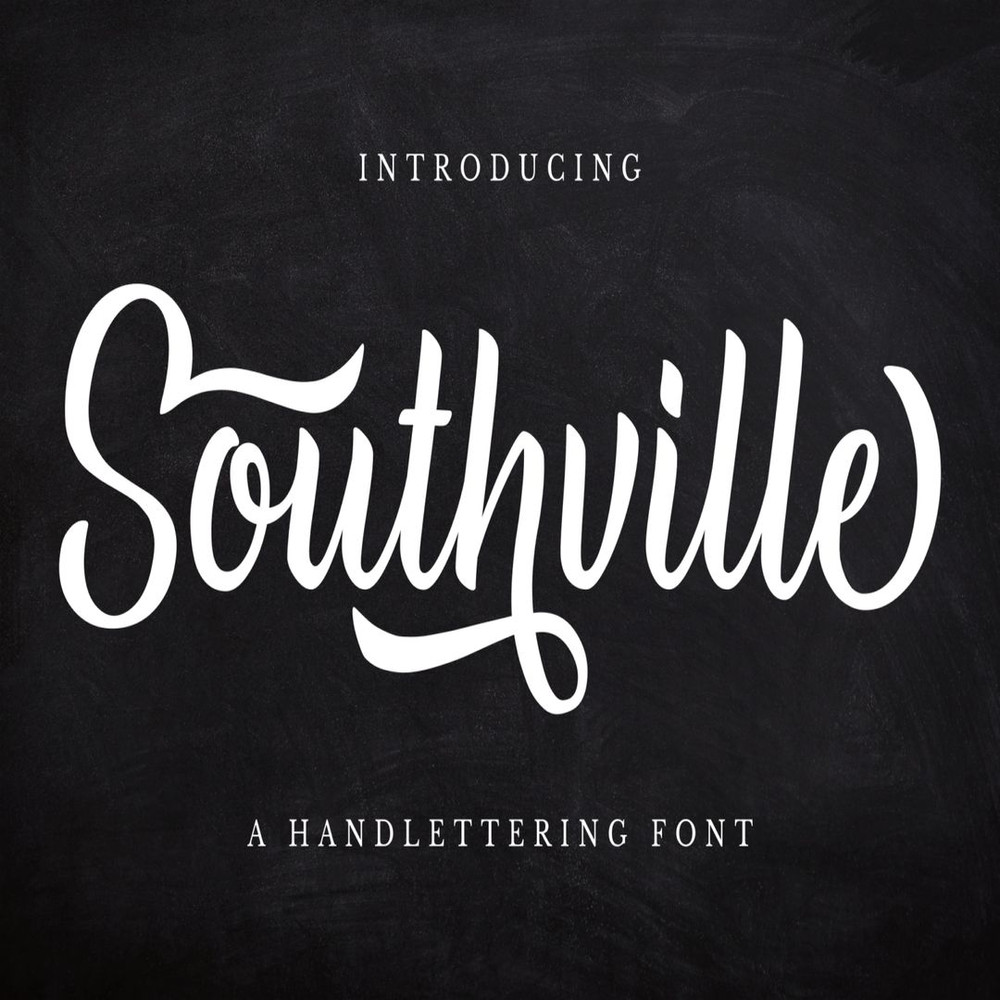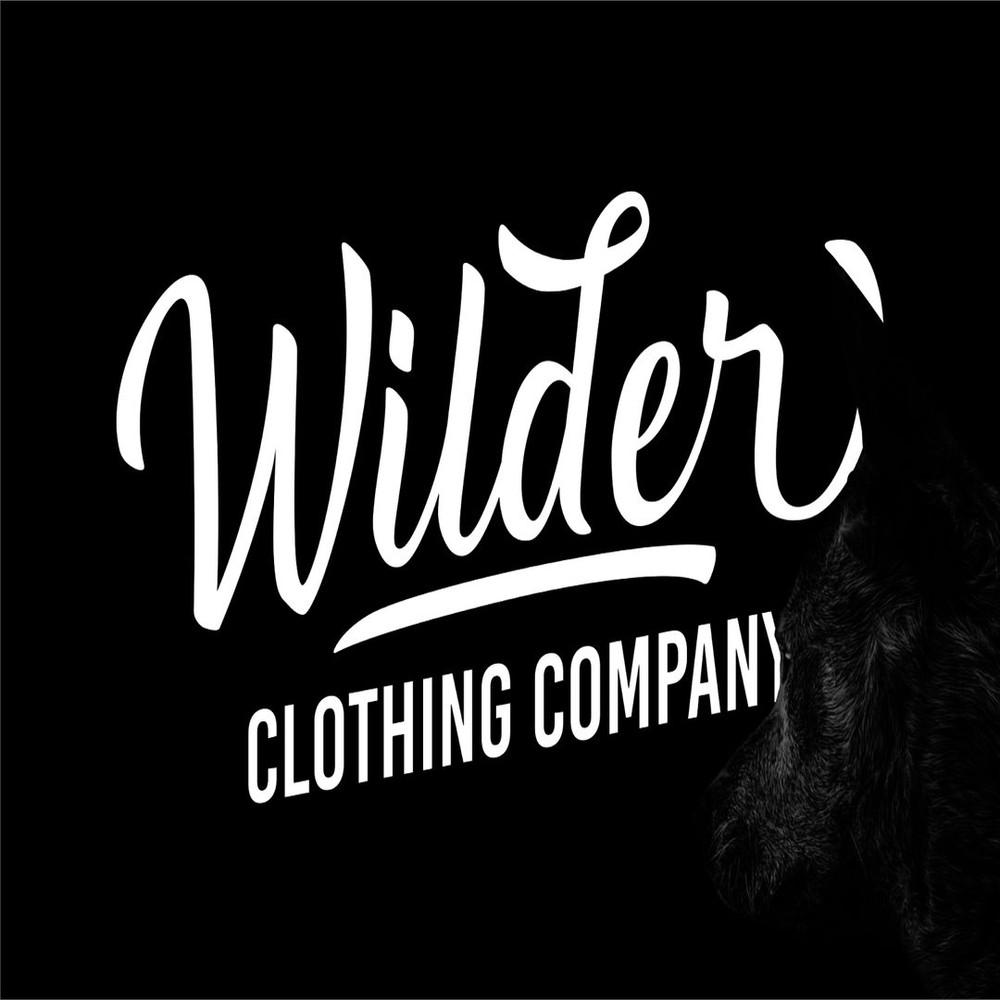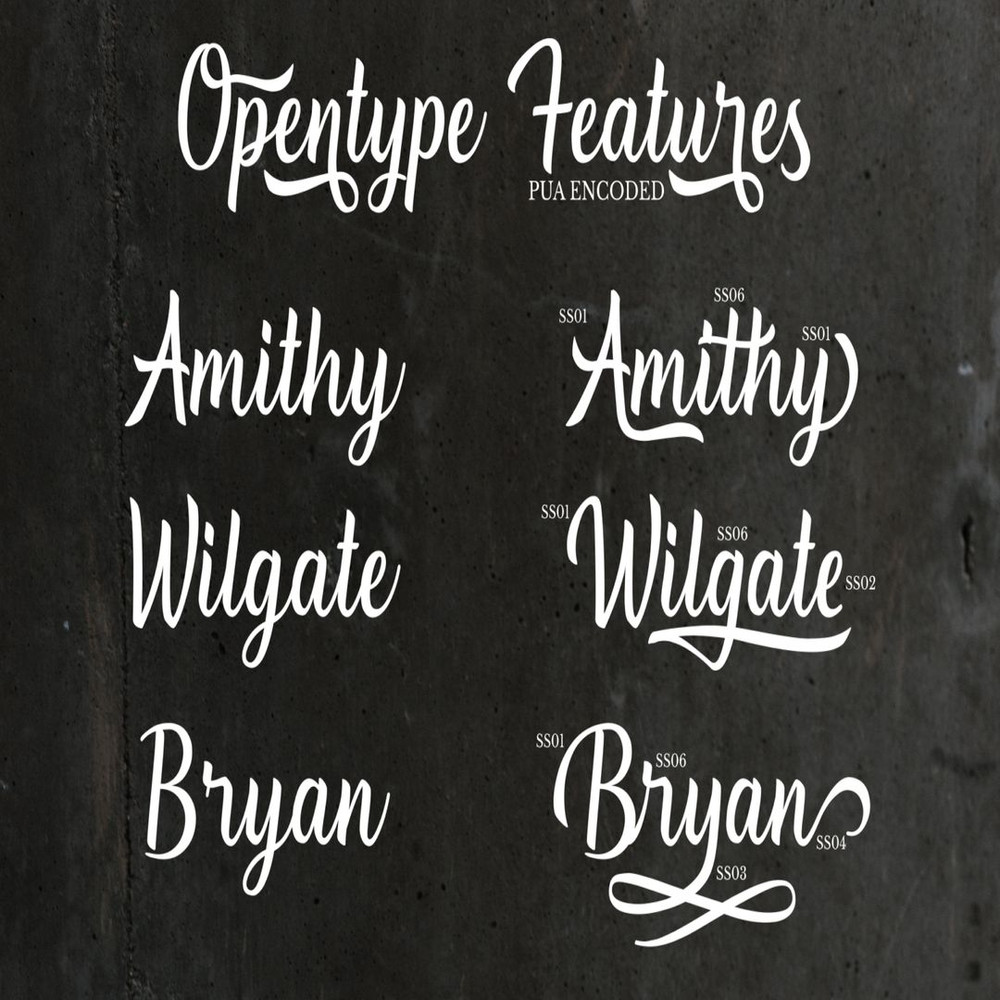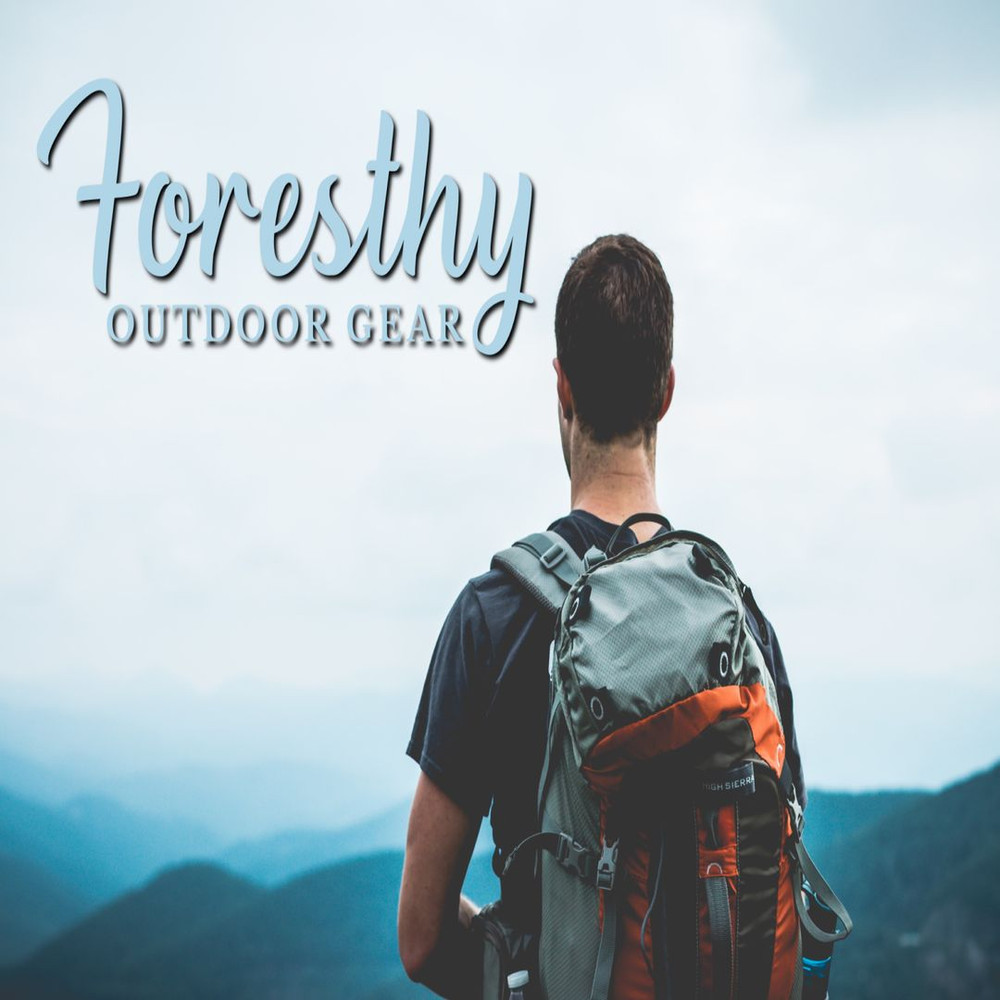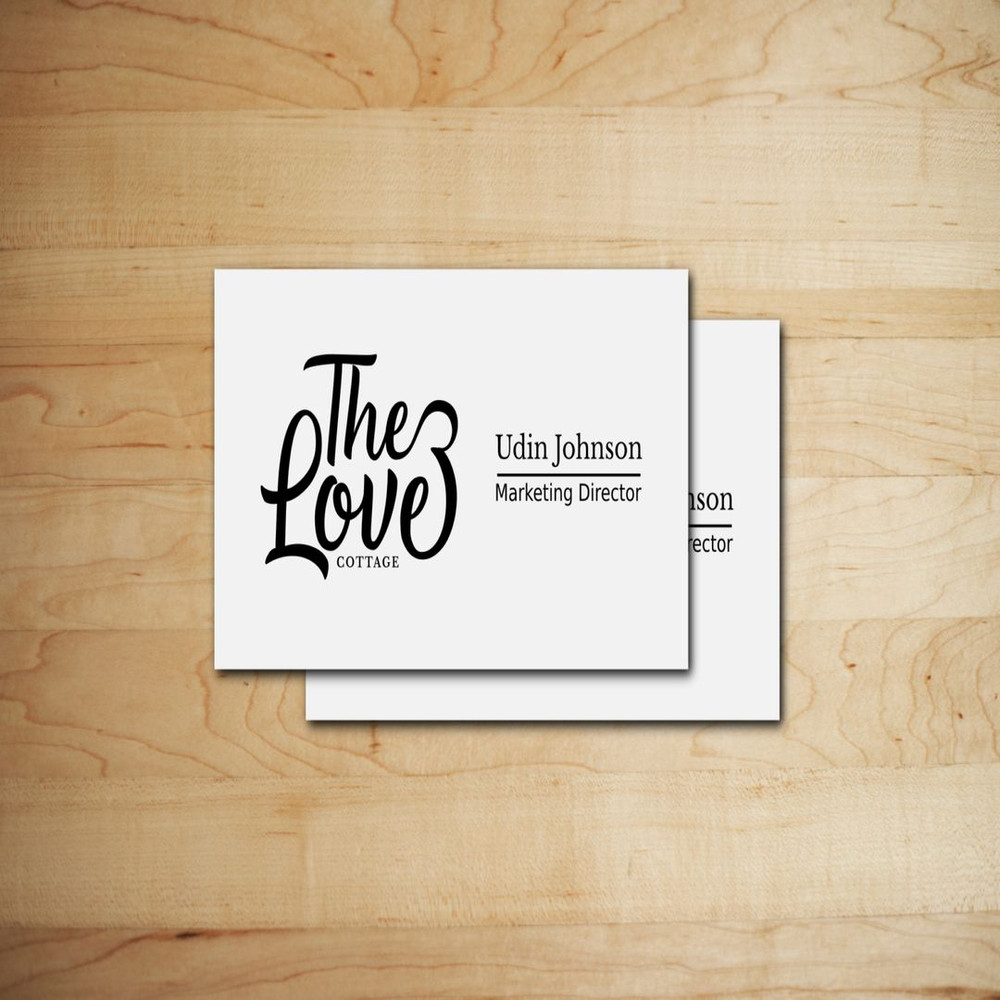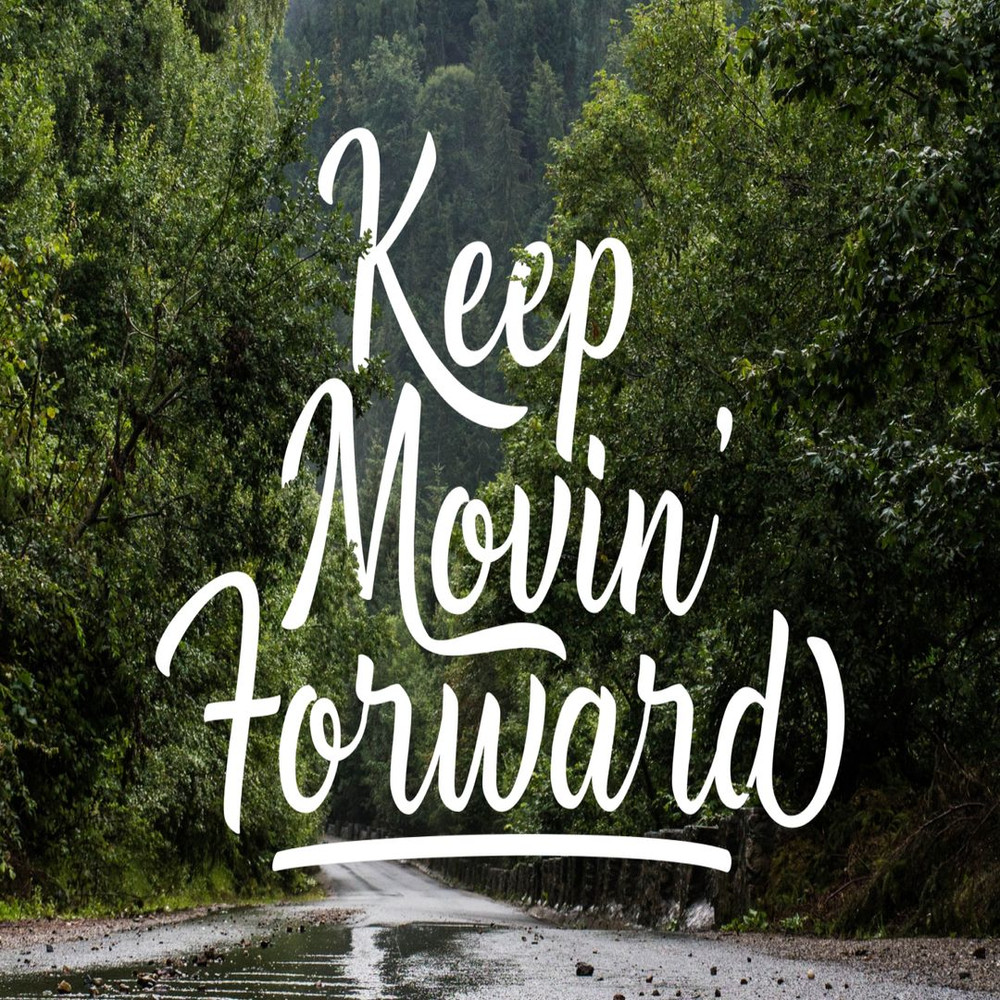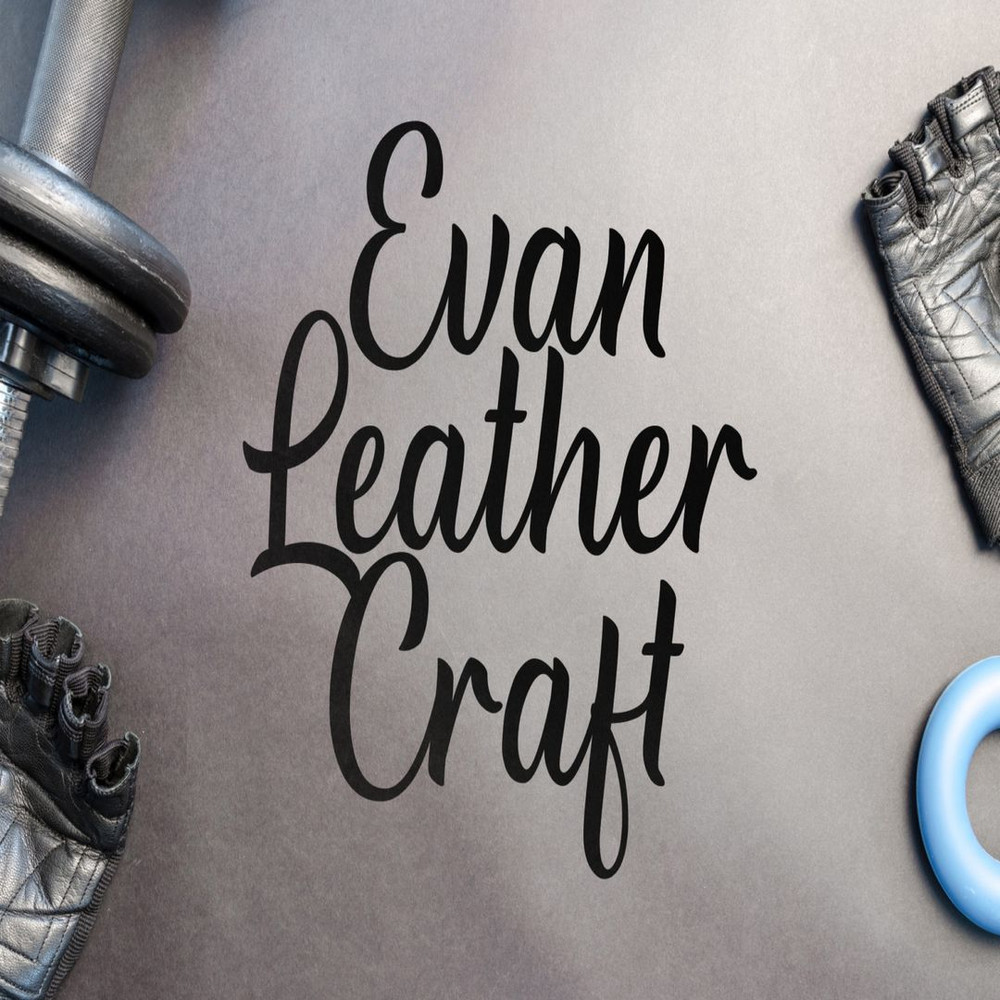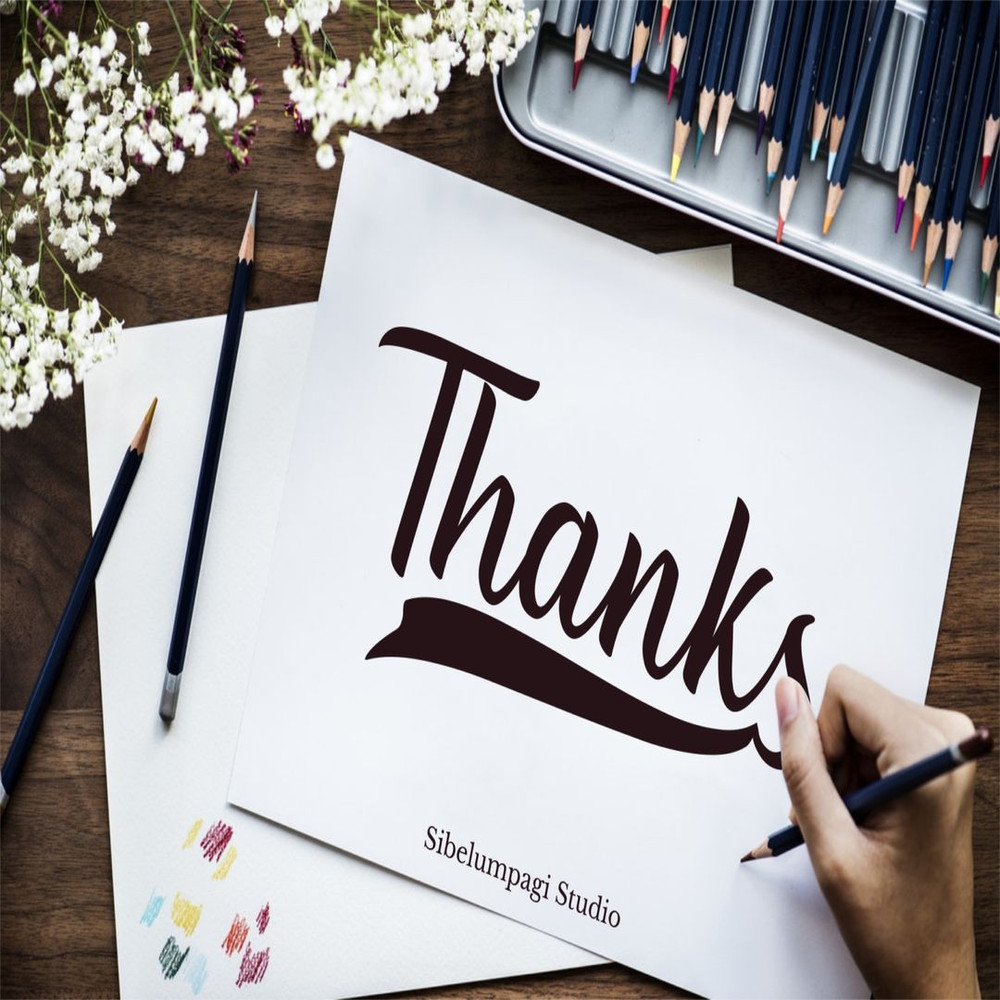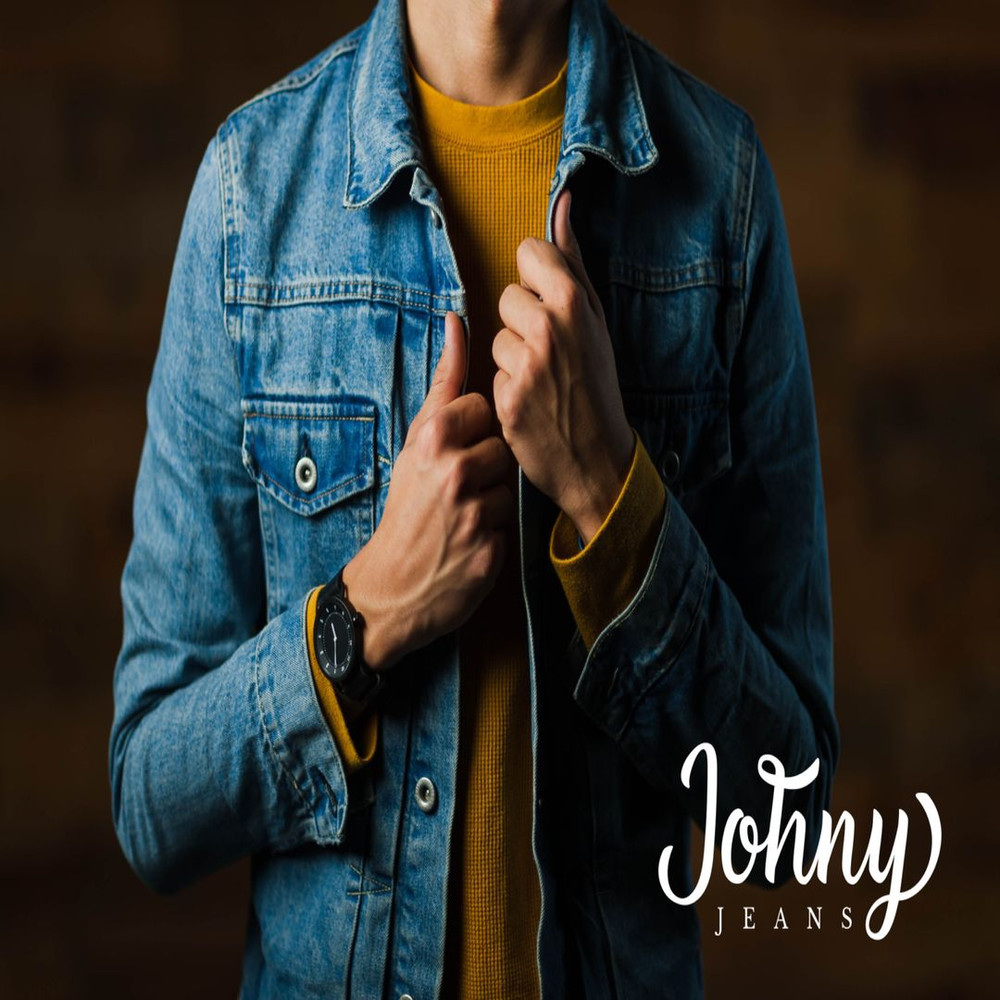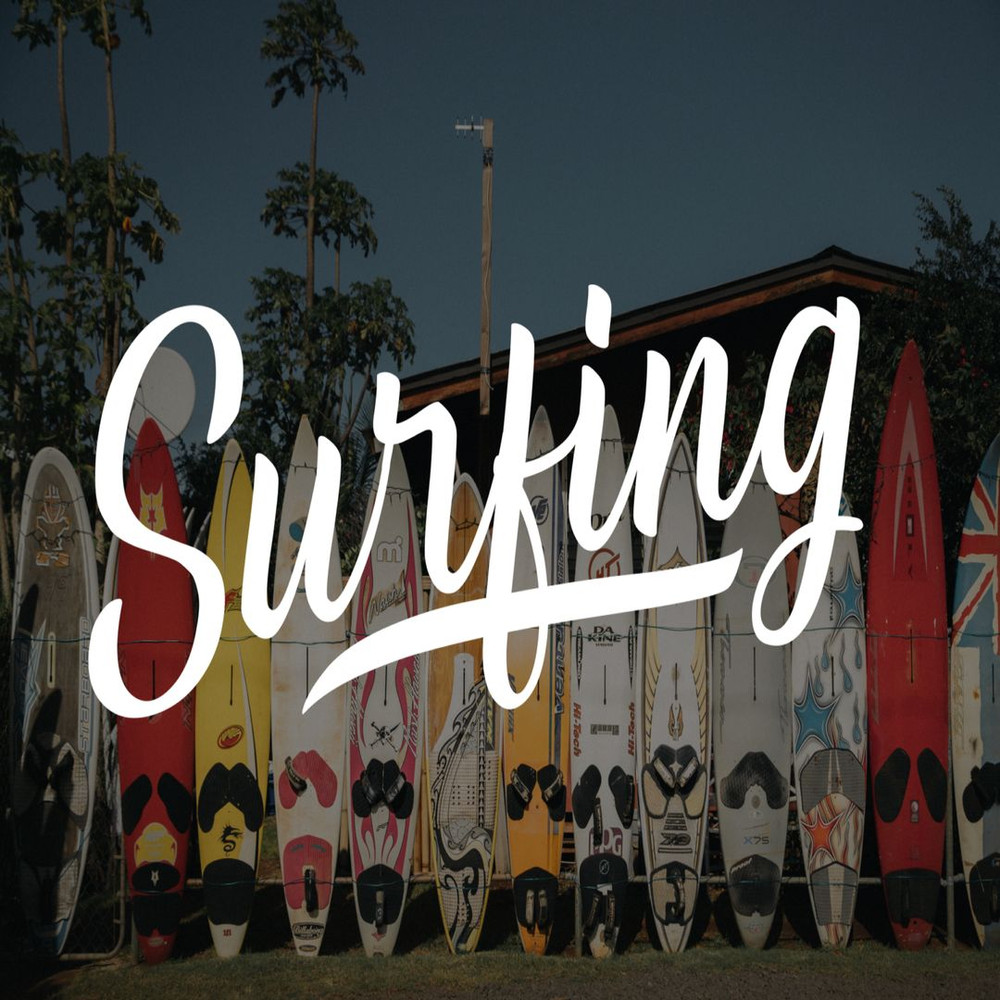
Southville is a hand-lettering font. It includes many swashes and alternates within 355 glyphs, it has a strong look which can be used for logos, branding, wedding invitations, titles, signatures, t-shirts, letterheads, signboards, labels, posters and much more!
Multilingual Supports
PUA encoded